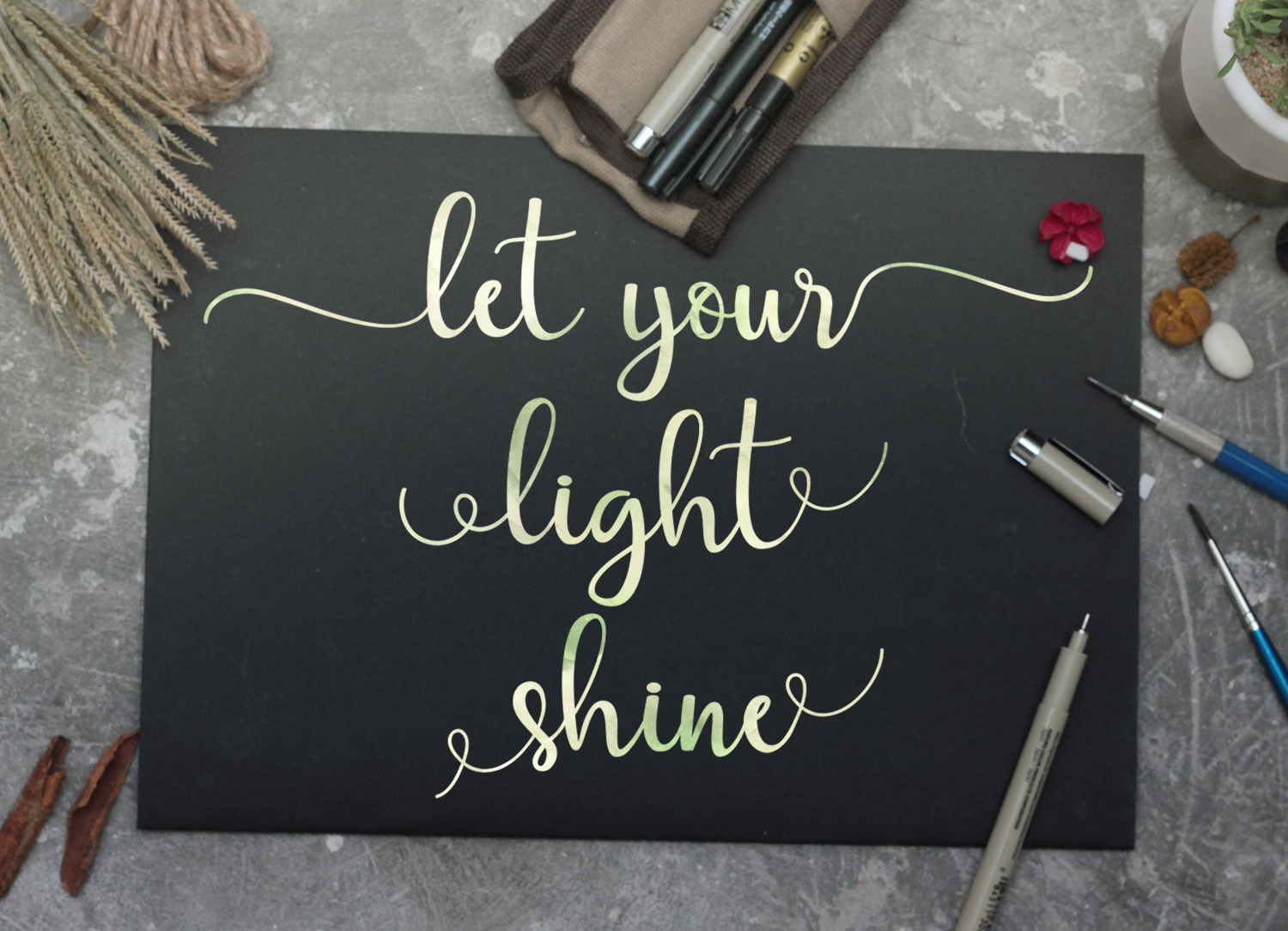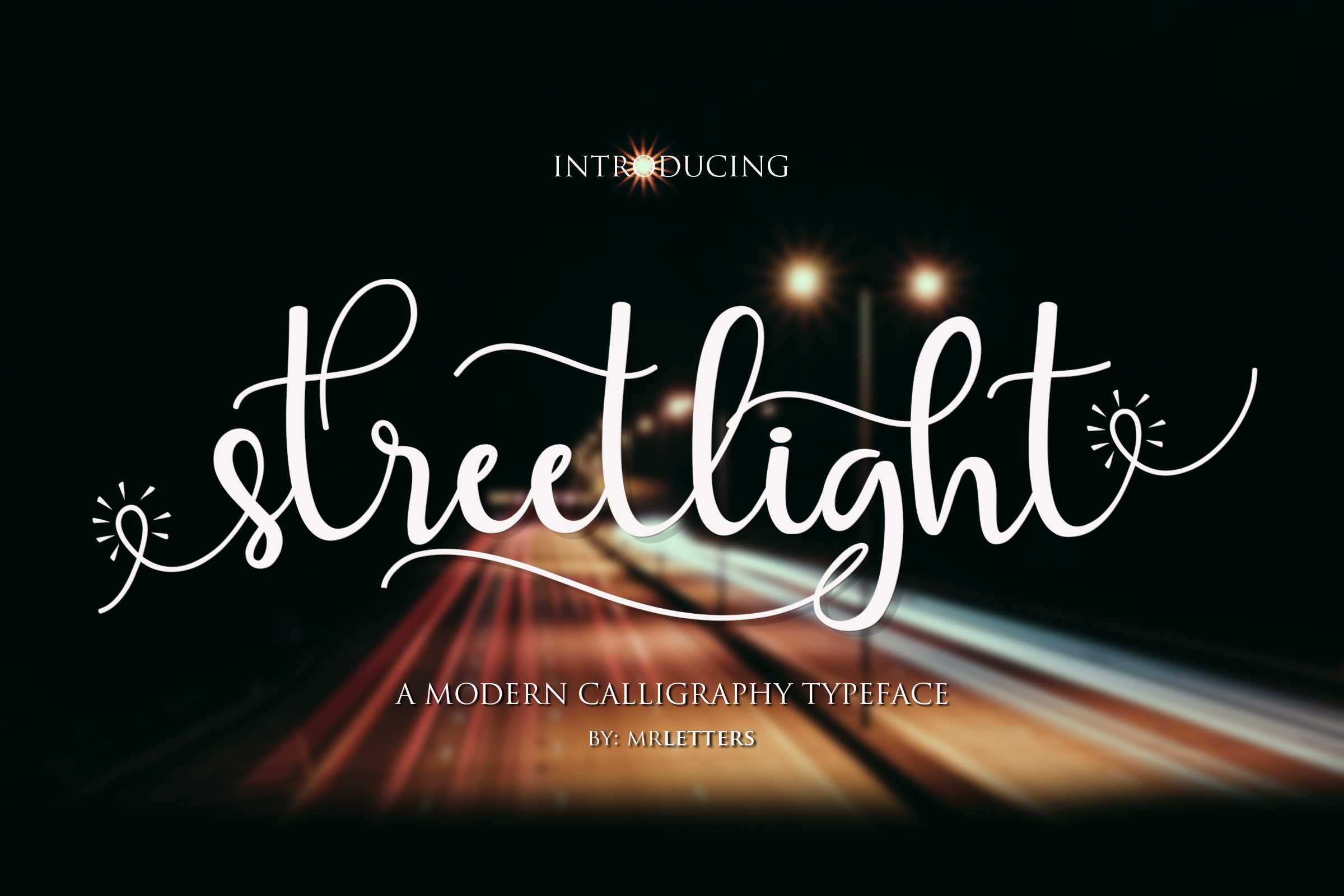
Streetlight Font
db-ku.com - Script & Handwritten -- The Streetlight Script font is a fresh, modern script font. It’s decorative characters mare drawn in a handmade calligraphy style.